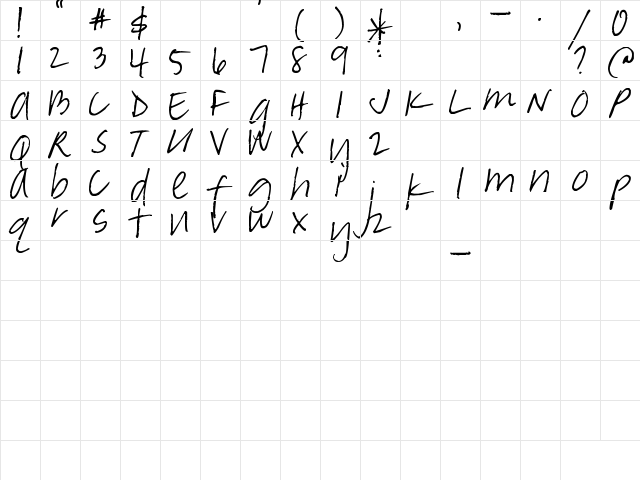
Pea Marcie's Skinny Print Regular Font Preview
Pea Marcie's Skinny Print Regular
Design Context for Pea Marcie's Skinny Print Typeface
Pea Marcie's Skinny Print is a composed and adaptable typeface that performs quietly and consistently across a wide range of design contexts.